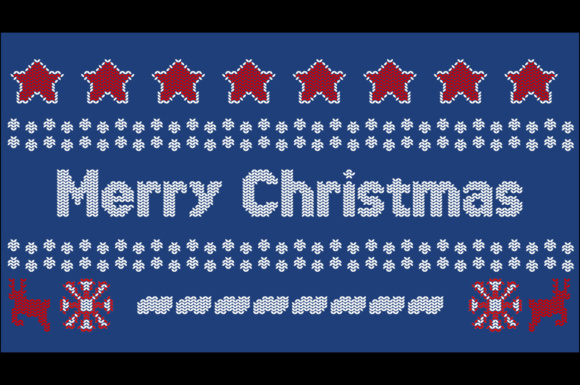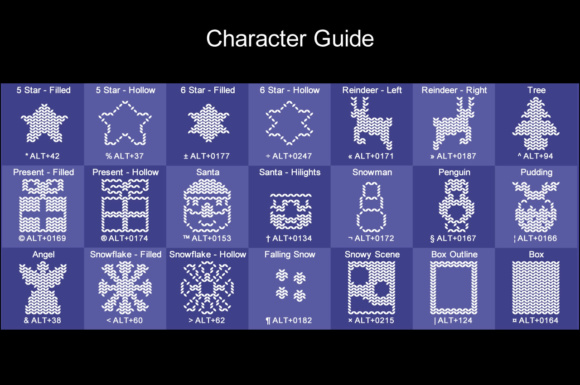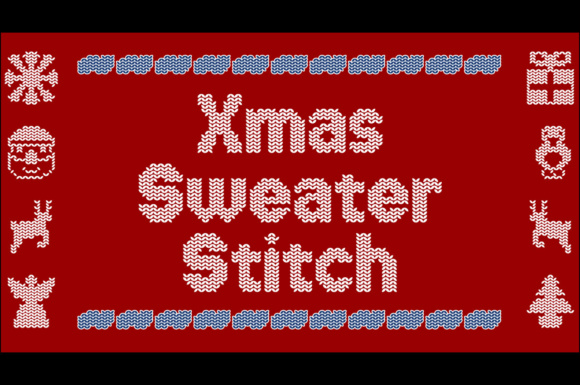
Spread some festive cheer by creating your own Christmas images with this fantastic font!
Looks just like a knitted woolly jumper like the kind you get at Christmas.
Spread some festive cheer by creating your own Christmas images with this fantastic font!
Looks just like a knitted woolly jumper like the kind you get at Christmas.